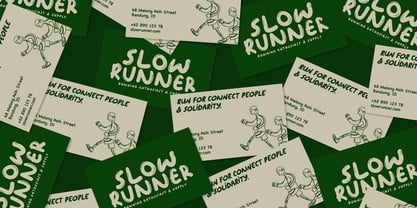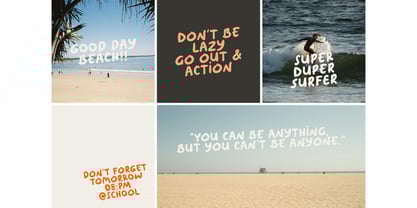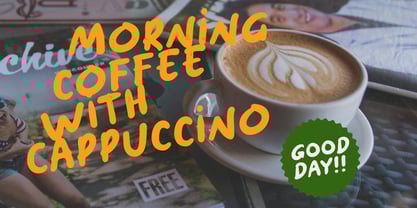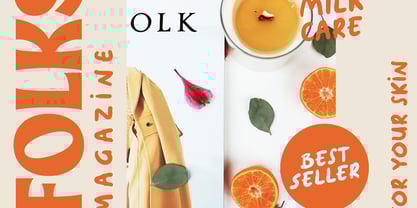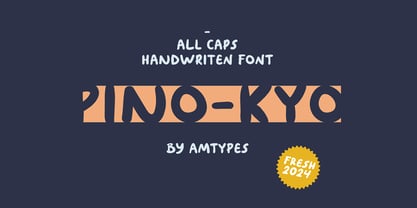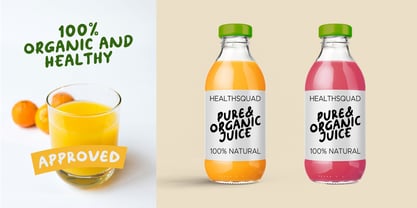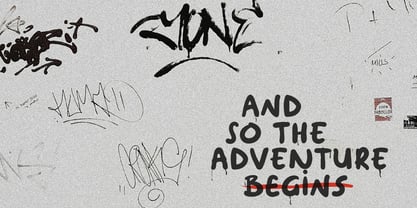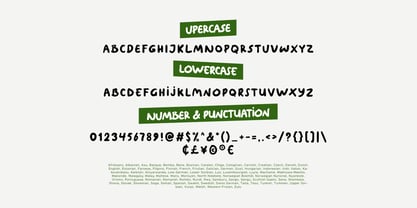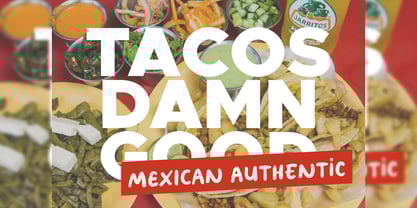
PinoKyo
by Angga Mahardika
Pinokyo is a playful and charming sans serif handwriting font that is perfect for creating a warm and inviting atmosphere. With its thick strokes and rounded edges, Pinokyo is reminiscent of children's handwriting, making it a great choice for projects that target a younger audience.
This font is also highly versatile and can be used for a variety of purposes, such as headings, body text, and even logos. Whether you're creating a children's book, designing a greeting card, or crafting a social media post, Pinokyo is sure to add a touch of personality and charm to your work.